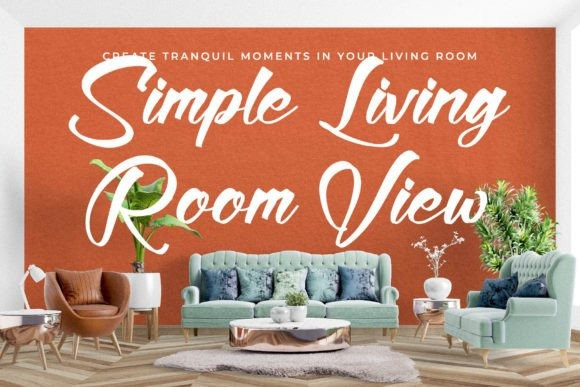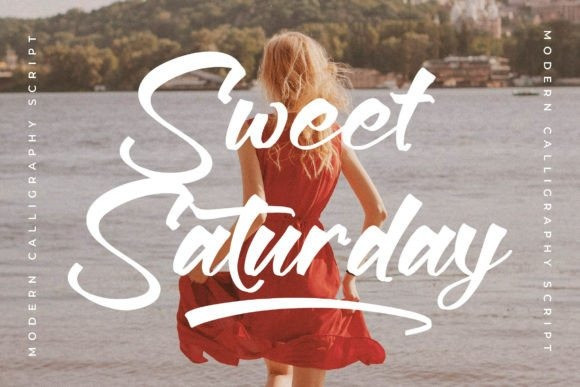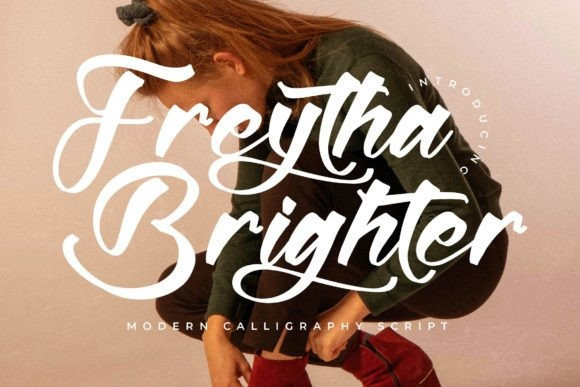
Freytha Brighter Font
Freytha Brighter Font – Modern Calligraphy Script , from Glorytype Studio, suitable for any projects such as: logos, branding projects, homeware designs, product packaging, mugs, quotes, posters, shopping bags, t-shirts, book covers, name card, invitation cards, greeting cards, label, photography, watermark, special events, and all your other lovely projects that need a beautiful script taste.